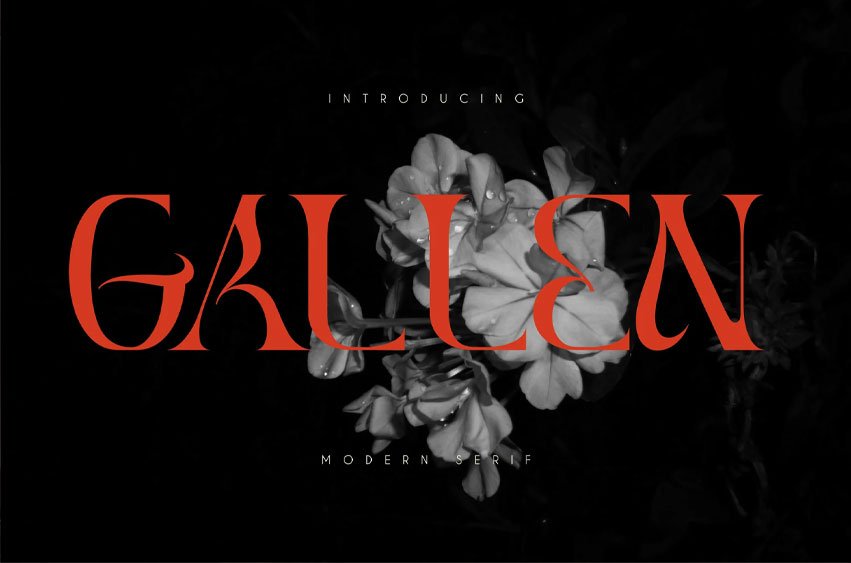
Gallen Font is a refined serif typeface that strikes a perfect balance between classic elegance and modern readability.
With well-defined, angular serifs and a mix of straight and curved lines, it exudes sophistication without being overly ornate.